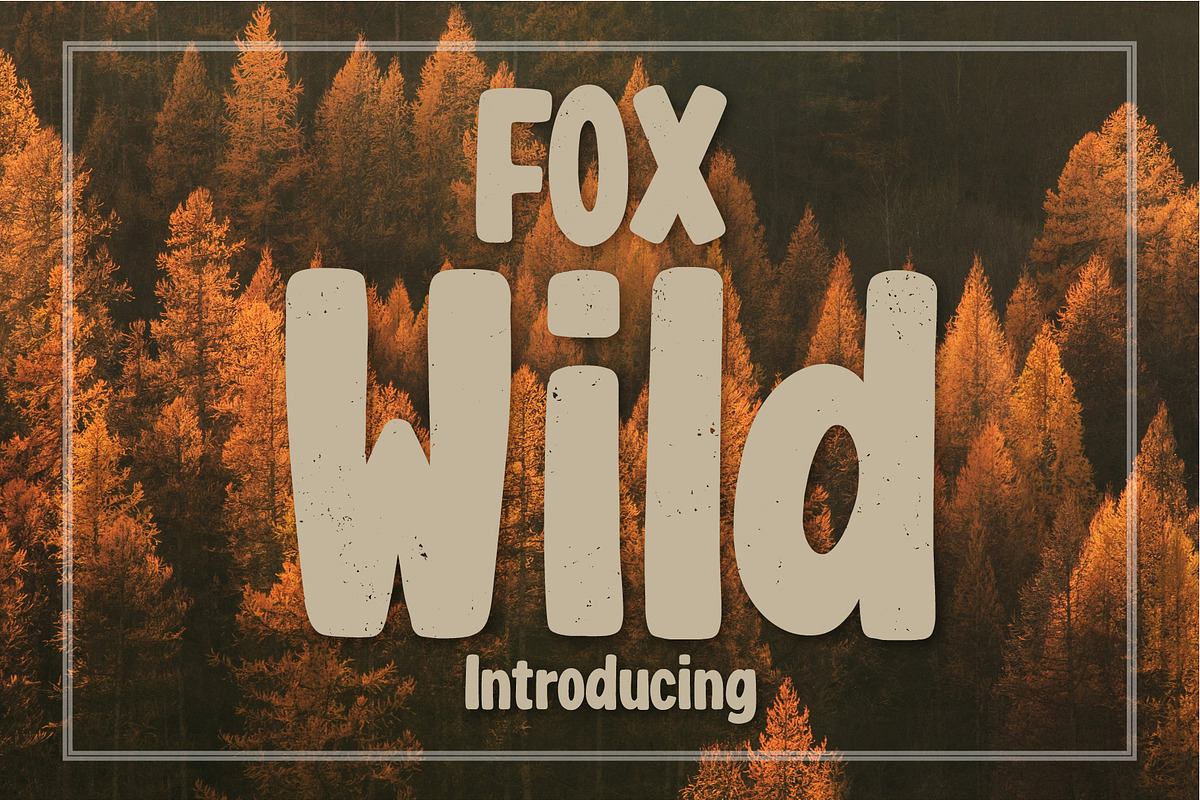
Fox Wild Font Free Download is a bold and adventurous typeface inspired by nature, wilderness, and playful creativity. With its hand-drawn style, rugged charm, and organic curves, this font is perfect for outdoor-themed branding, children’s book titles, adventure posters, logo designs, and whimsical packaging.
Whether you're crafting a forest-themed illustration or designing a nature-inspired brand, Fox Wild adds a fun, untamed personality to your work. Its natural flow and slightly rough edges give it a handcrafted, authentic feel—perfect for designs that want to stay wild and free.
Easy to use and packed with character, this font brings both charm and confidence to any project.